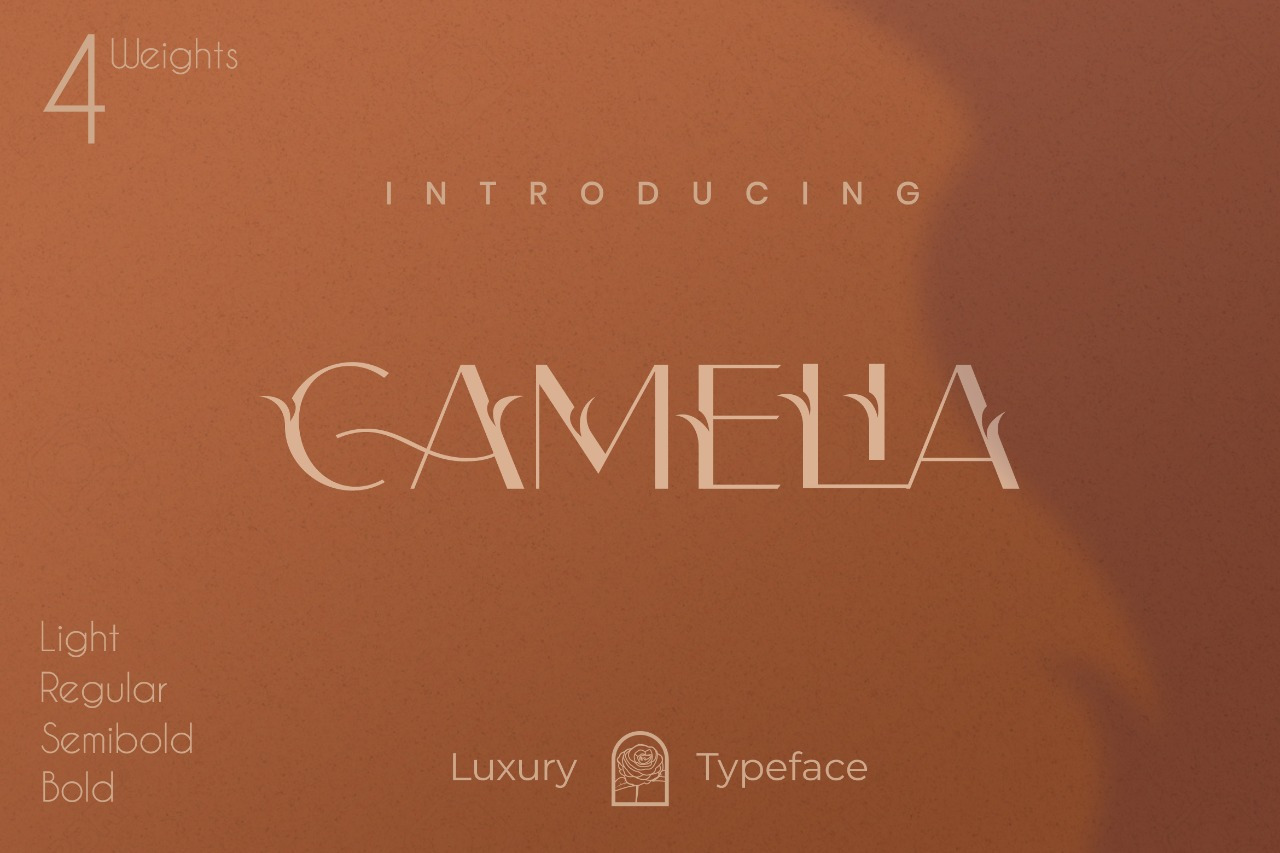
Camelia Sans - Unique Typeface
Introducing Camelia Typeface
Camelia Sans is an Elegant font with beautiful ligatures, tons of special alternative glyphs, ornament and multilingual support. It's a very versatile font that works great in large and small sizes. Camelia Sans is perfect for branding projects, Logo design, Clothing Branding, product packaging, magazine headers, or simply as a stylish text overlay to any background image.
- 4 Weights font
- All caps
- Stylistic Alternates & Ligatures
- Multiple Languages Supported